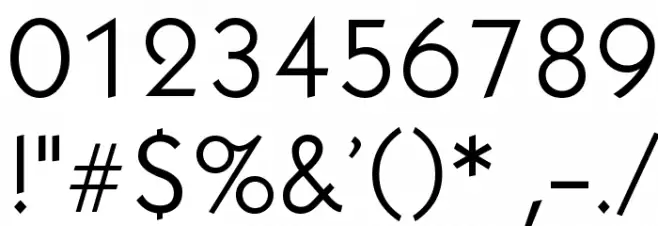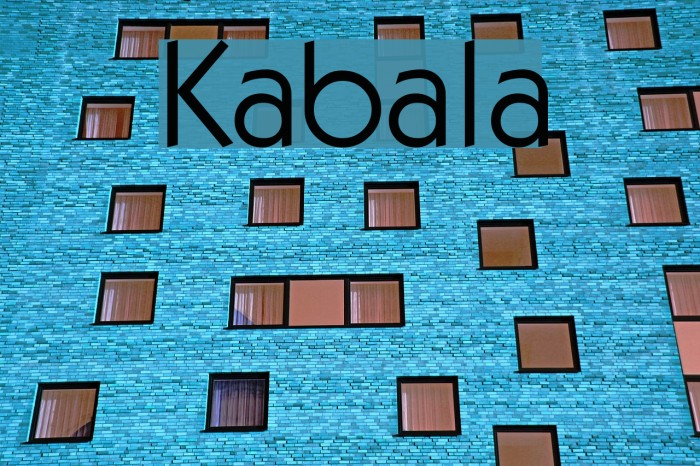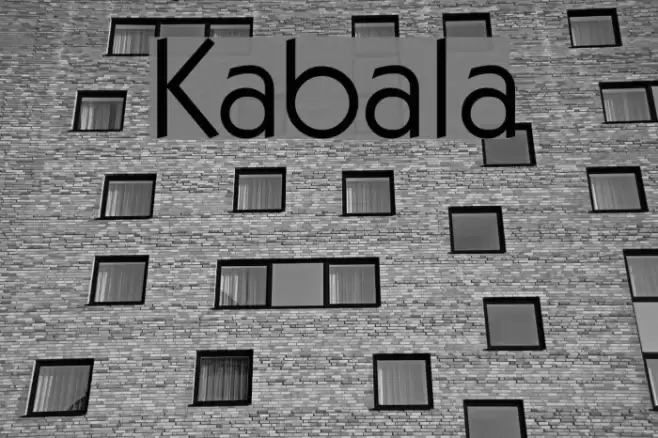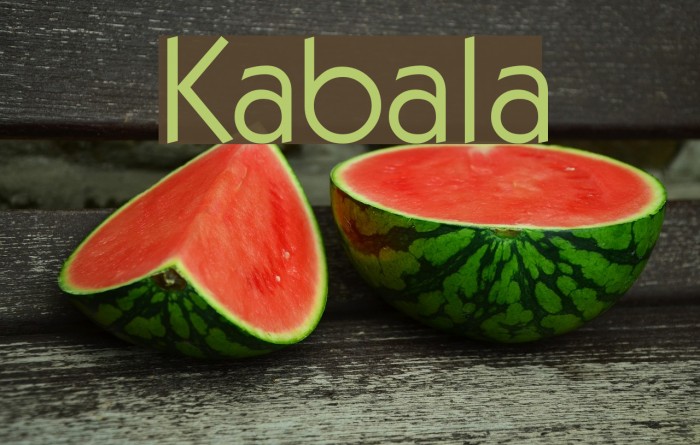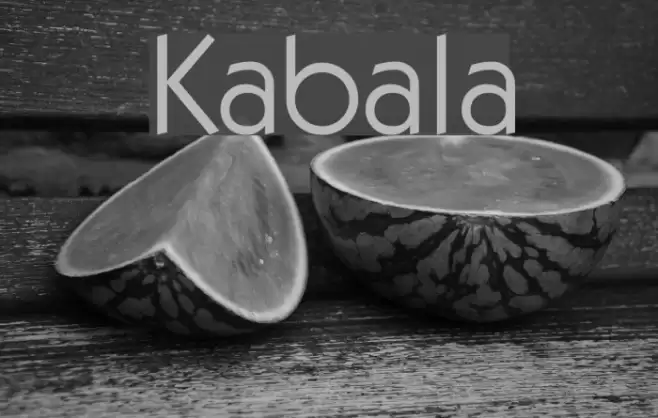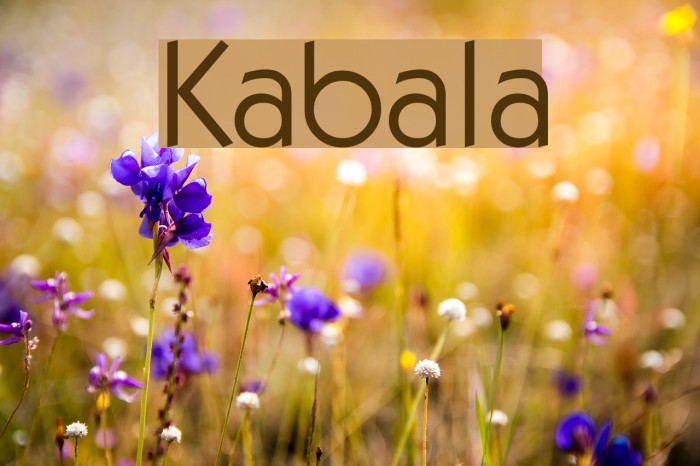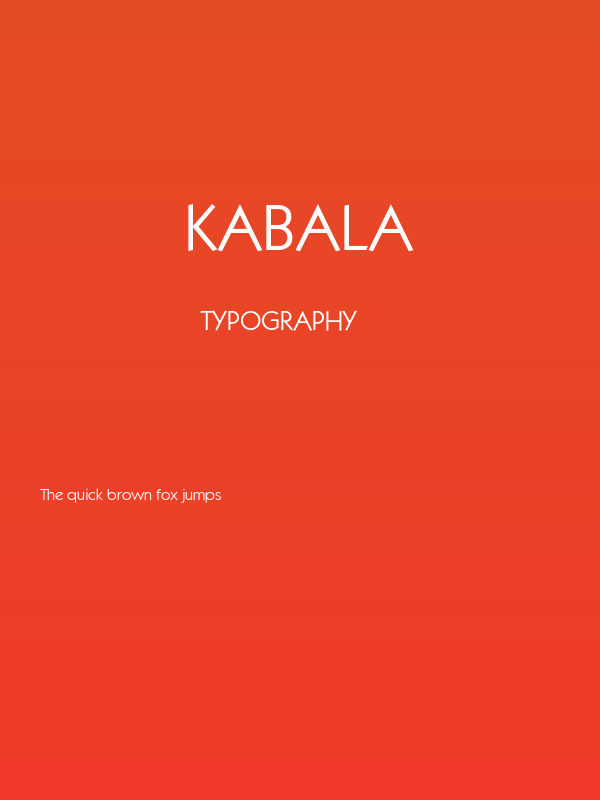
Kabala Font
Kabala Description
This font features a clean and modern sans-serif design, characterized by its geometric shapes and balanced proportions. The uppercase letters are bold and assertive, while the lowercase letters maintain a friendly and approachable appearance. The numbers are clear and easy to read, making them suitable for both digital and print media. Special characters are well-integrated, ensuring consistency across various uses. The overall aesthetic is minimalistic, with a focus on clarity and legibility, making it versatile for a wide range of applications.
| Proposed Projects | Ideal for branding, advertising, web design, and editorial layouts due to its modern and clean appearance. |